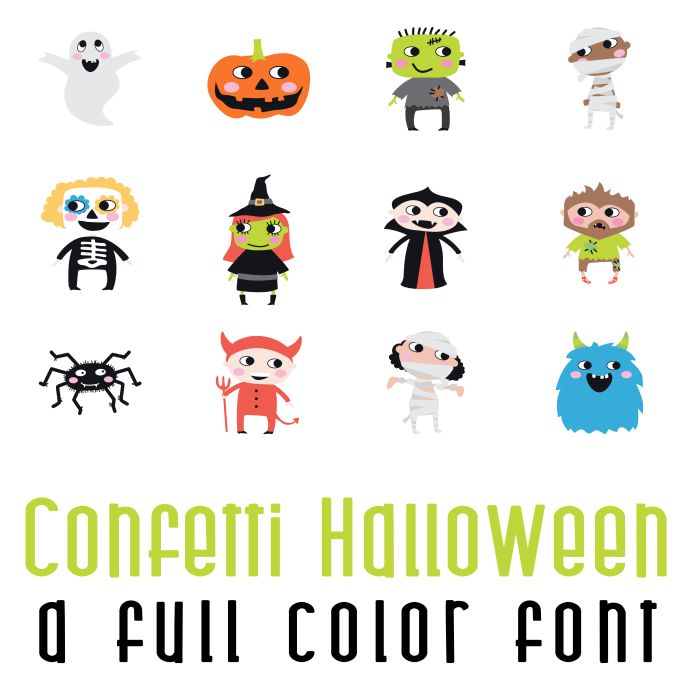
This fun full color font features 26 adorable Halloween characters. Perfect for cards, crafts, gifts, planner stickers, scrap book pages, decor and more!